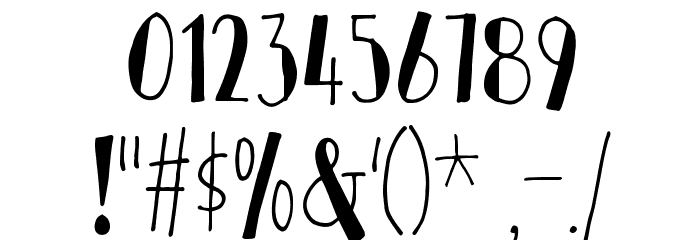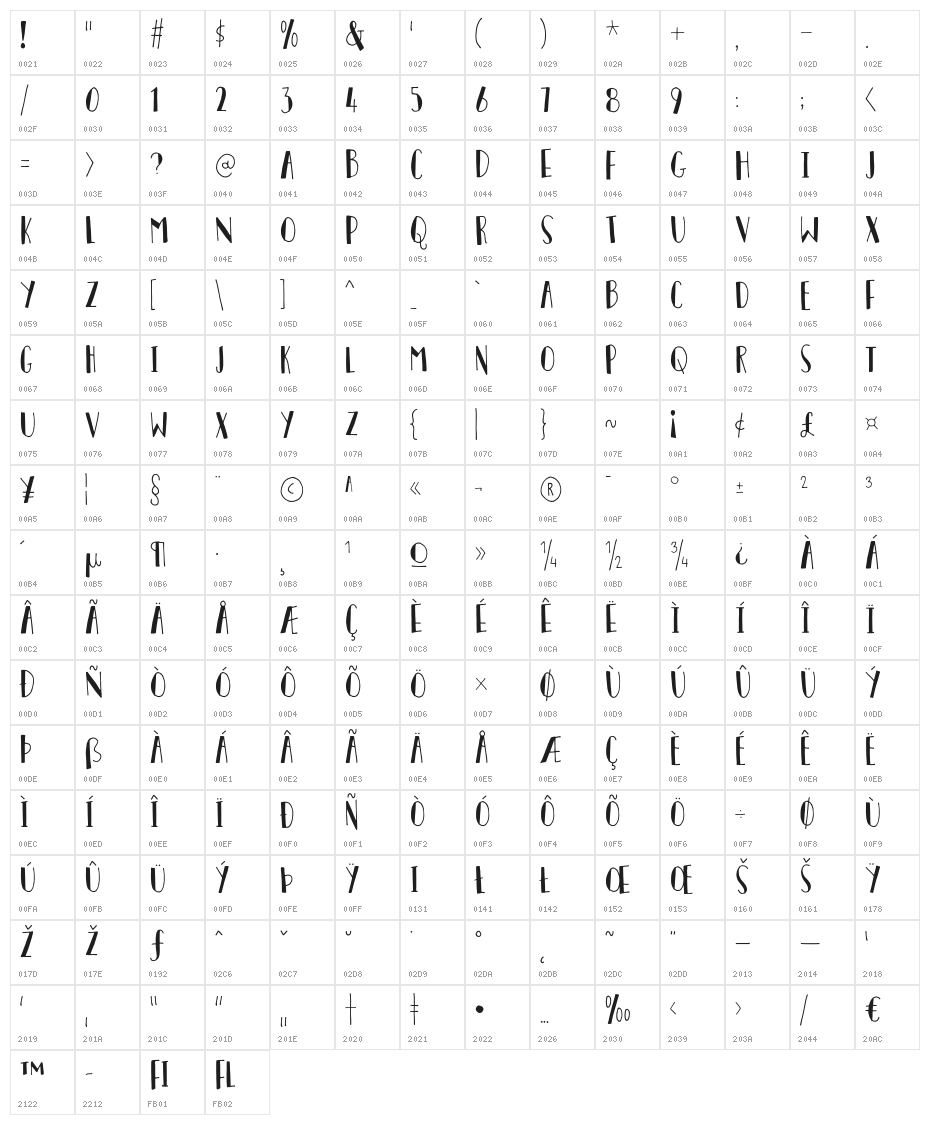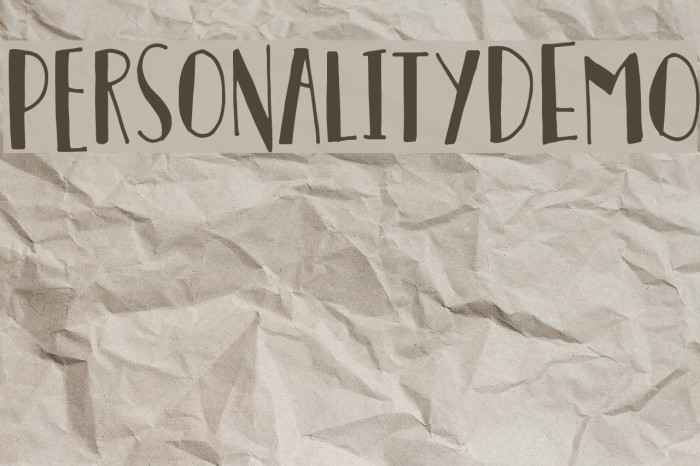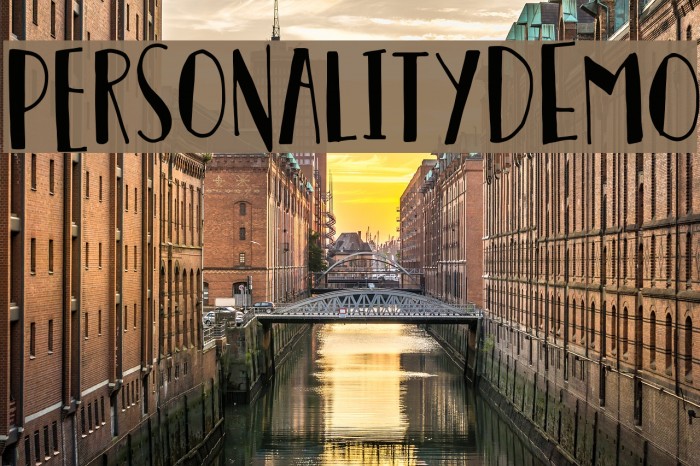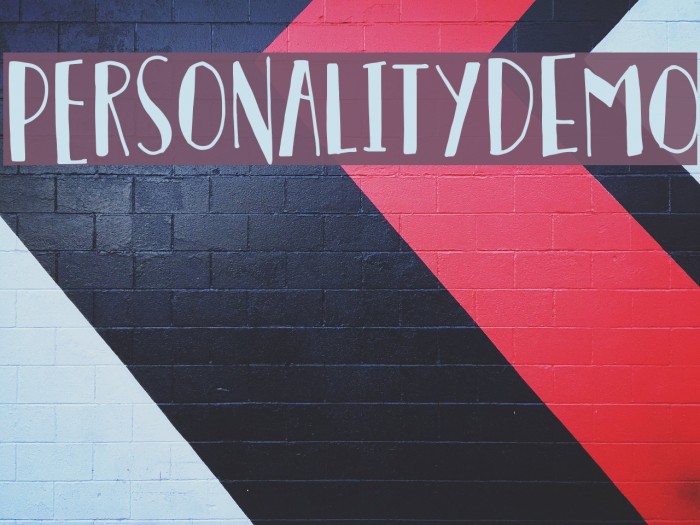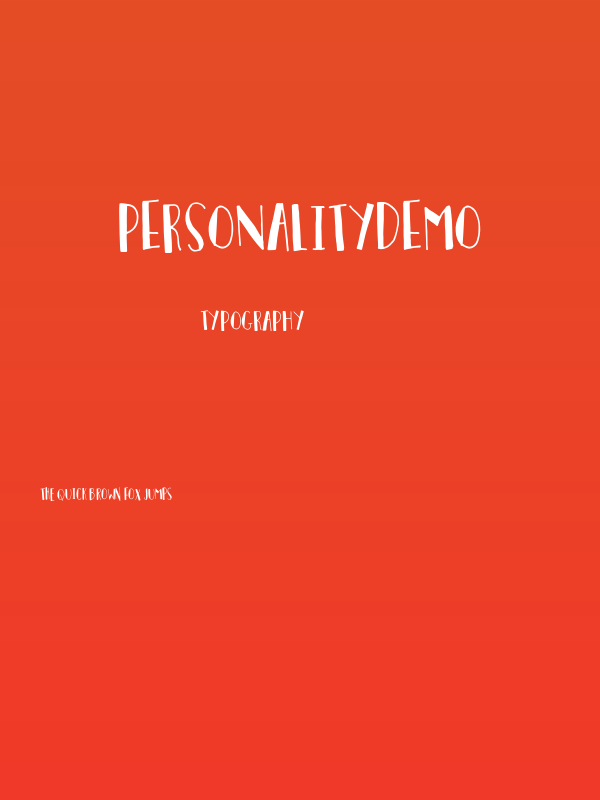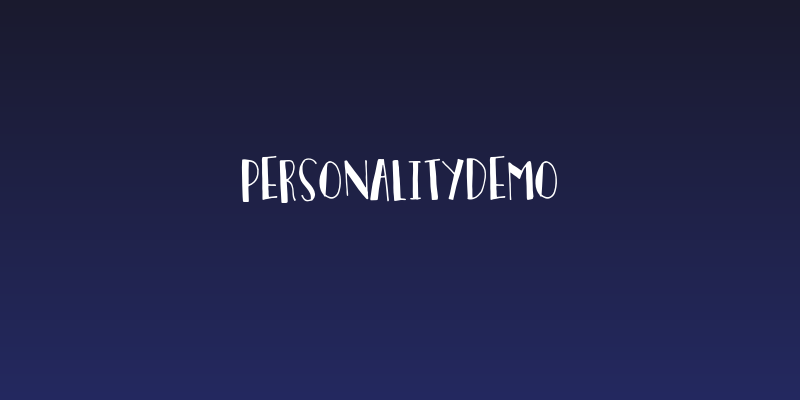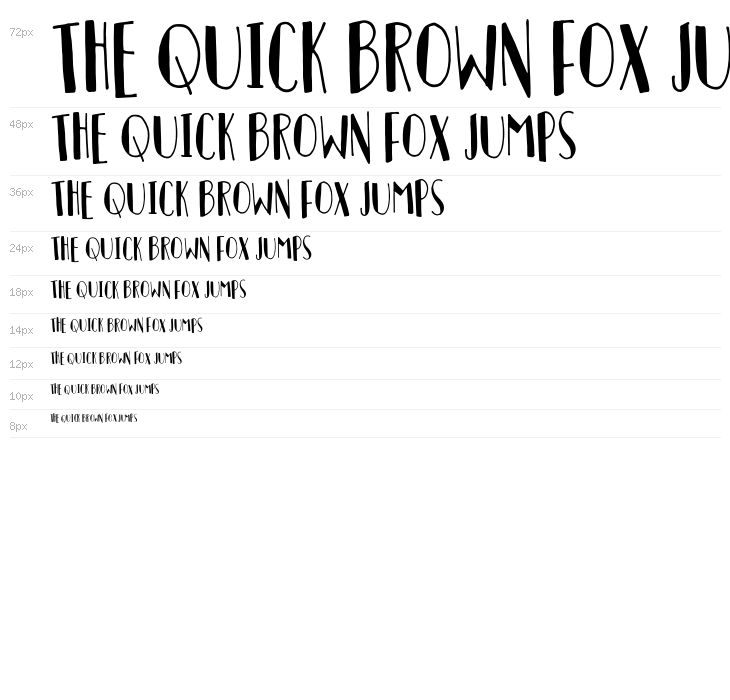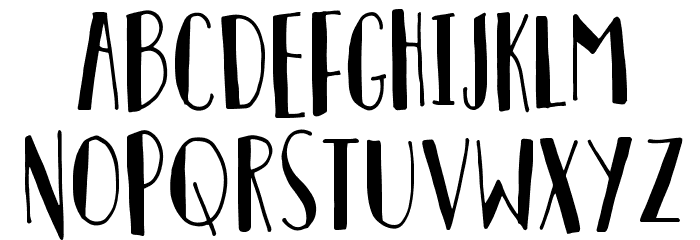
PersonalityDEMO Font
PersonalityDEMO Description
This font features a playful and informal style, characterized by its hand-drawn appearance. The letters are tall and slightly irregular, giving it a whimsical and friendly feel. The strokes are uneven, with varying thickness that adds to its charm. The uppercase and lowercase letters maintain a consistent style, while the numbers and special characters complement the overall design. This font is ideal for projects that require a personal touch or a casual, approachable aesthetic.